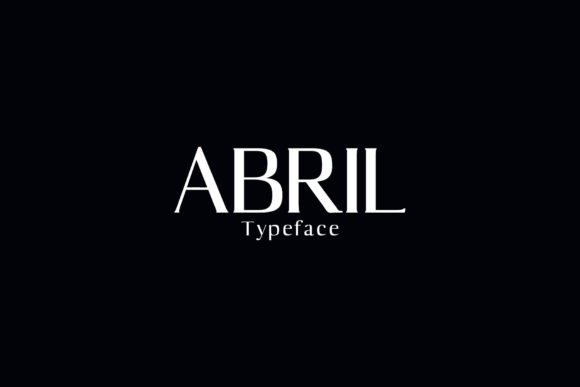
Behold Abril Font, the bold and assertive serif font designed to elevate your creative visions! Unleash the power of artistic expression with this masterpiece, crafted by the skilled hands at Creative Tacos. Abril is not just a font; it's an experience, a journey into the realm of captivating typography. Let your designs dance with elegance and flair, leaving an unforgettable impact on every viewer.
Immerse yourself in the world of Abril, where serifs meet curves with unwavering confidence. Each letterform exudes a captivating allure, inviting your audience to engage with your content in a whole new light. Whether you're crafting awe-inspiring logos, enchanting posters, or dazzling social media graphics, Abril is your ultimate companion. Its versatility knows no bounds, effortlessly adapting to any canvas you paint.
Elevate your designs to new heights with Abril's remarkable clarity and readability. Each character glistens with precision, ensuring your message shines through with crystal-clear brilliance. Say goodbye to dull, monotonous text and hello to a symphony of visual delight.
Unlock the gate to endless creative possibilities with Abril. This font family is a treasure trove of remarkable variations, each possessing its own unique charm. From the classic elegance of Abril Fatface to the playful energy of Abril Light Italic, the options are limitless. Mix and match styles, experiment with combinations, and watch as your designs take on a life of their own.
With Abril at your fingertips, you'll embark on a journey of aesthetic ecstasy. Transform ordinary words into captivating narratives, breathe life into your branding, and leave a lasting impression on every reader. Embrace the power of Abril and let your creativity soar beyond boundaries.